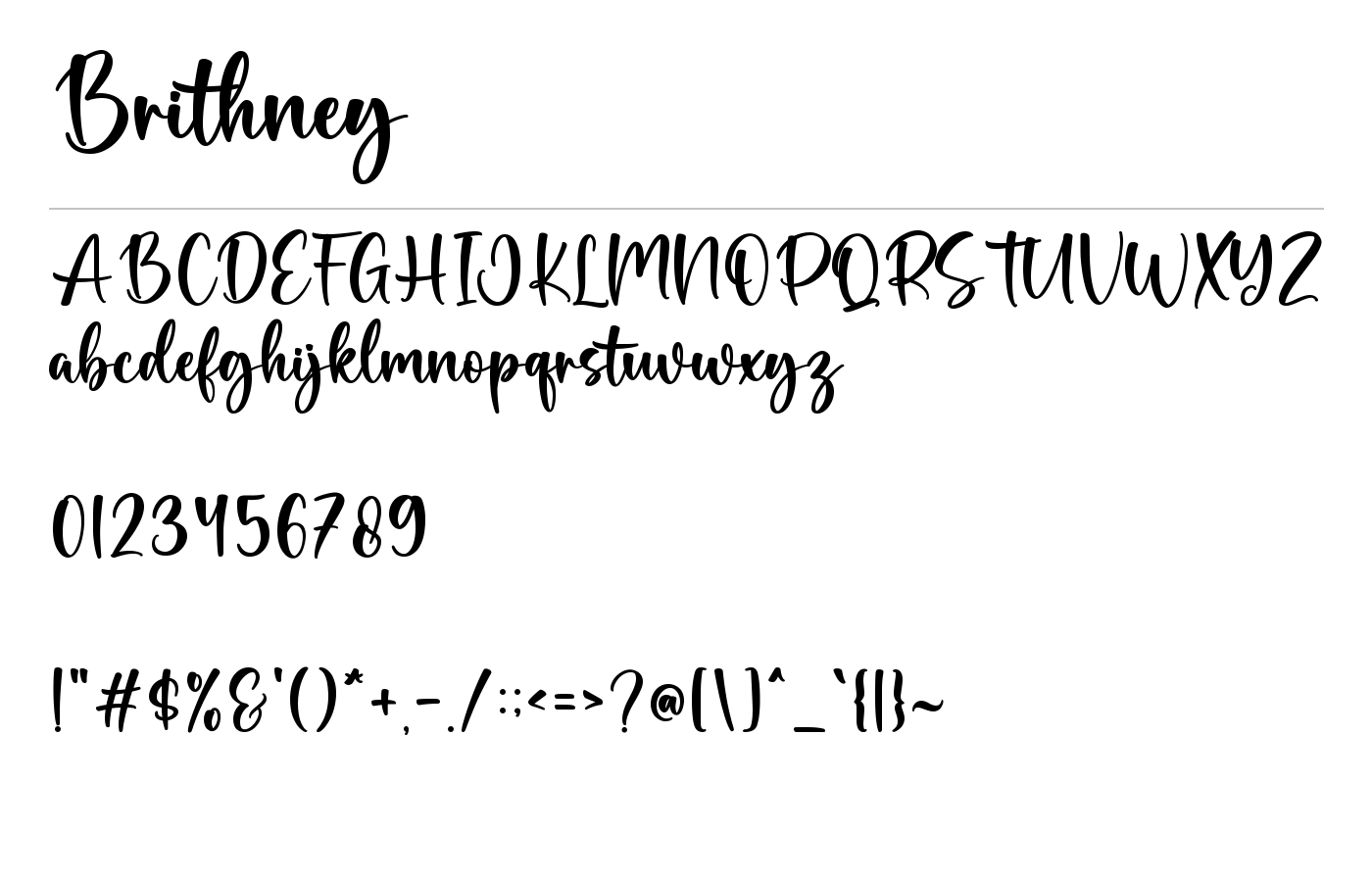
Brithney is a lively and modern script font that features fluid, handwritten strokes with a playful yet elegant feel. Its moderate weight and natural flow make it perfect for branding, invitations, and creative projects that want to convey a friendly, approachable style. This font works especially well in logos and headlines where a personal, artistic touch is desired.
Brithney Font
About Brithney Font